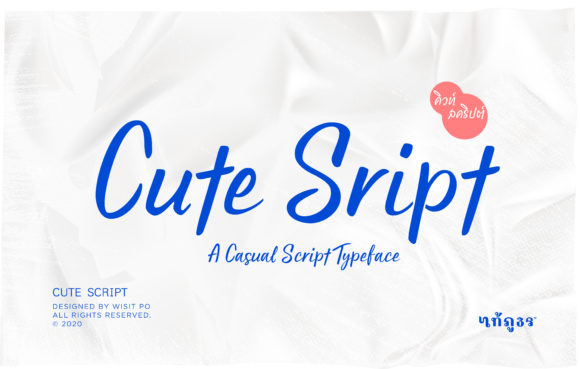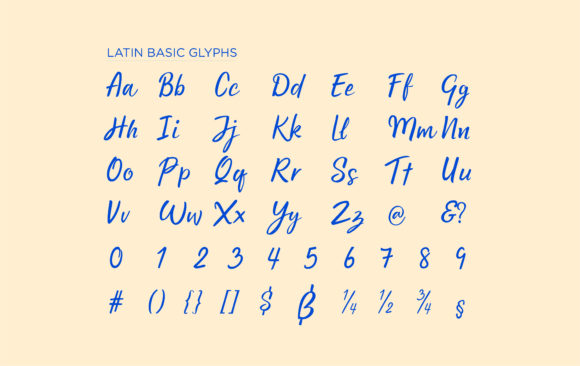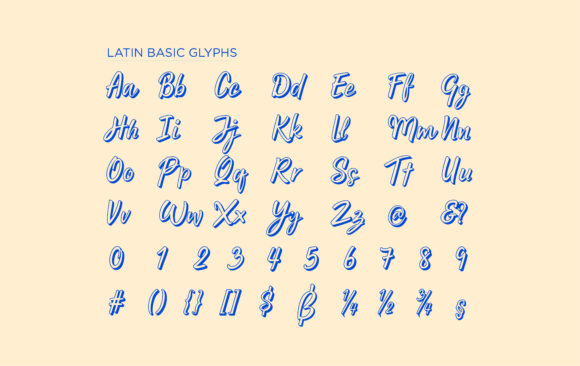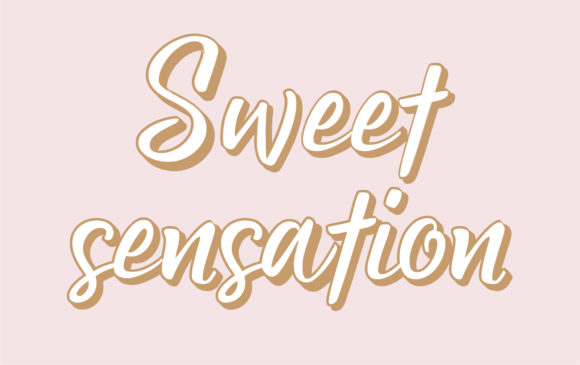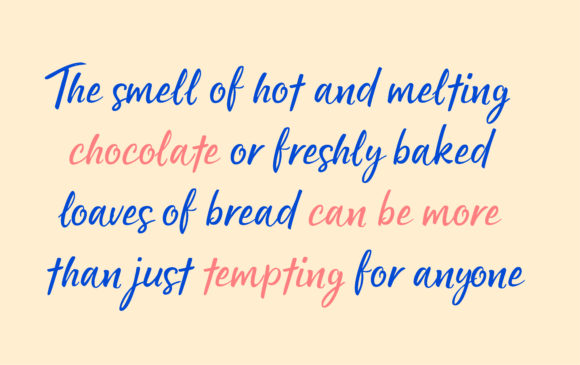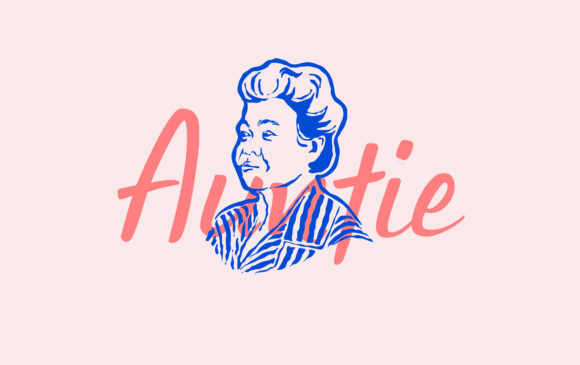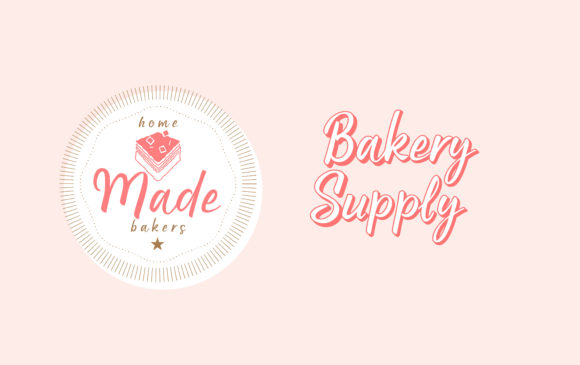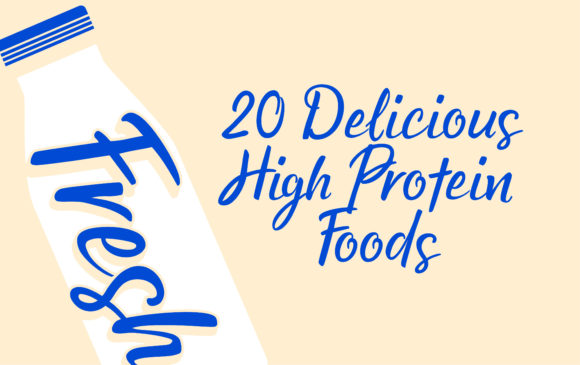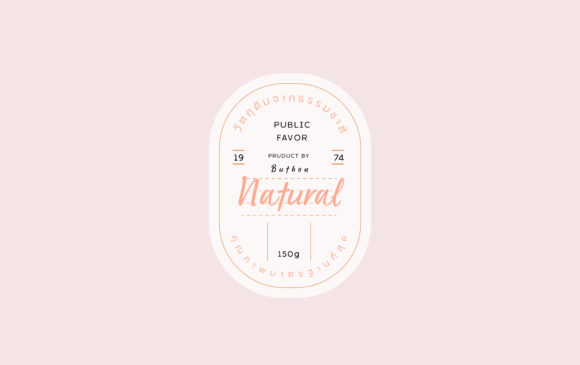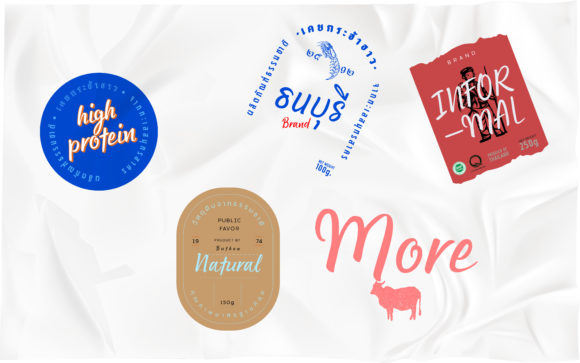
Cute Script Font
About Cute Script Font
Cute Script is a charming and delicate script font that adds a touch of elegance and class to any design. With its flowing and graceful letterforms, this font is perfect for those seeking a beautiful and refreshing look.
The beauty of Cute Script lies in its simplicity and versatility. The letters are carefully crafted with soft curves and smooth connections, creating a harmonious and pleasing visual aesthetic. The script style of the font gives it a handwritten feel, adding a personal and intimate touch to your designs.
Whether you’re creating wedding invitations, branding materials, quotes, or any other design project, Cute Script will elevate your work with its timeless elegance. The font’s delicate nature makes it suitable for a variety of themes, including romantic, feminine, and sophisticated designs.
The legibility of Cute Script ensures that your message is easily conveyed to your audience. Each letter has been meticulously designed to maintain clarity, even in smaller sizes. The consistency of the letterforms allows for smooth and effortless reading, while still capturing the eye with its elegant and refined appearance.
Cute Script is a font that stands out with its simplicity and versatility. It can be paired with other fonts to create beautiful typographic compositions or used on its own as a focal point. Its timeless and refreshing look makes it suitable for both digital and print applications, including logos, packaging, stationery, social media graphics, and more.
To enhance your designs further, Cute Script includes a variety of swashes and stylistic alternates that add flair and personality. These additional glyphs allow you to customize and create unique typographic compositions that reflect your individual style and creative vision.
Incorporating Cute Script into your designs is effortless. With its OpenType features and PUA encoding, accessing the swashes and alternates is a breeze, giving you the freedom to explore different design possibilities and create truly personalized and captivating compositions.
Embrace the elegance and class of Cute Script in your next design project. Let its delicate and refreshing style breathe life into your creations, adding a touch of beauty and sophistication.